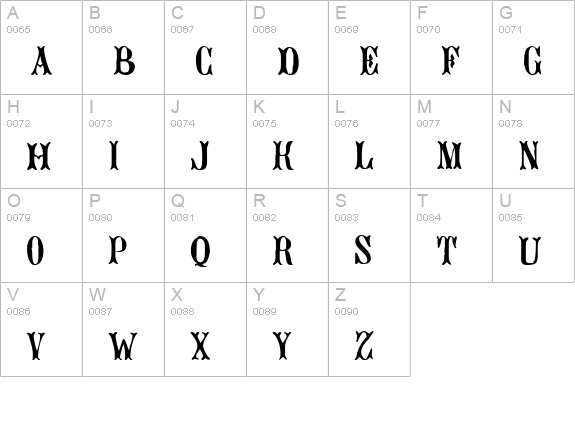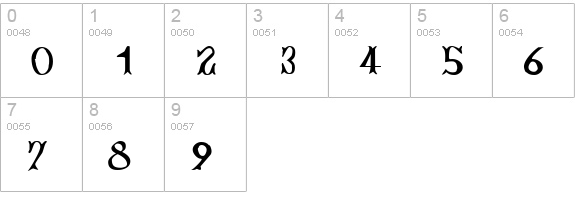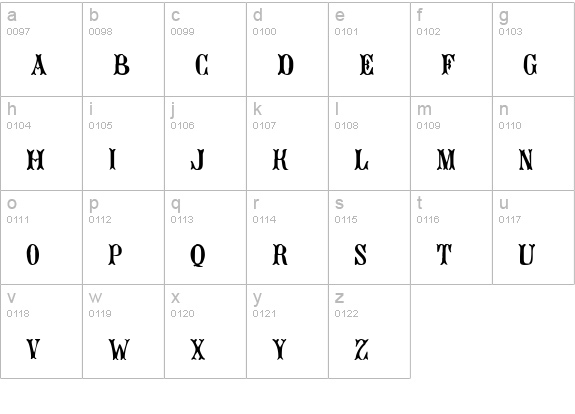
Bujardet Freres Font Details
Bujardet Freres is a stunning and elegant font that exudes sophistication and charm. With its delicate strokes and timeless appeal, this font is perfect for adding a touch of class to any design project. Whether you're creating invitations, branding materials, or editorial layouts, Bujardet Freres will elevate your work to the next level. What's even better is that this exquisite font is available for free download at FontsMarket.com. Yes, you read that right - you can get your hands on Bujardet Freres without spending a dime. Don't miss out on this amazing opportunity to enhance your projects with a high-quality font that is both beautiful and free. Download Bujardet Freres today and let your creativity shine!